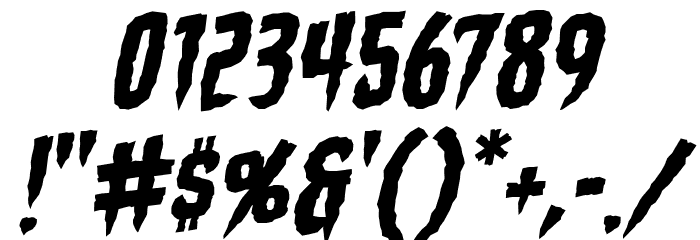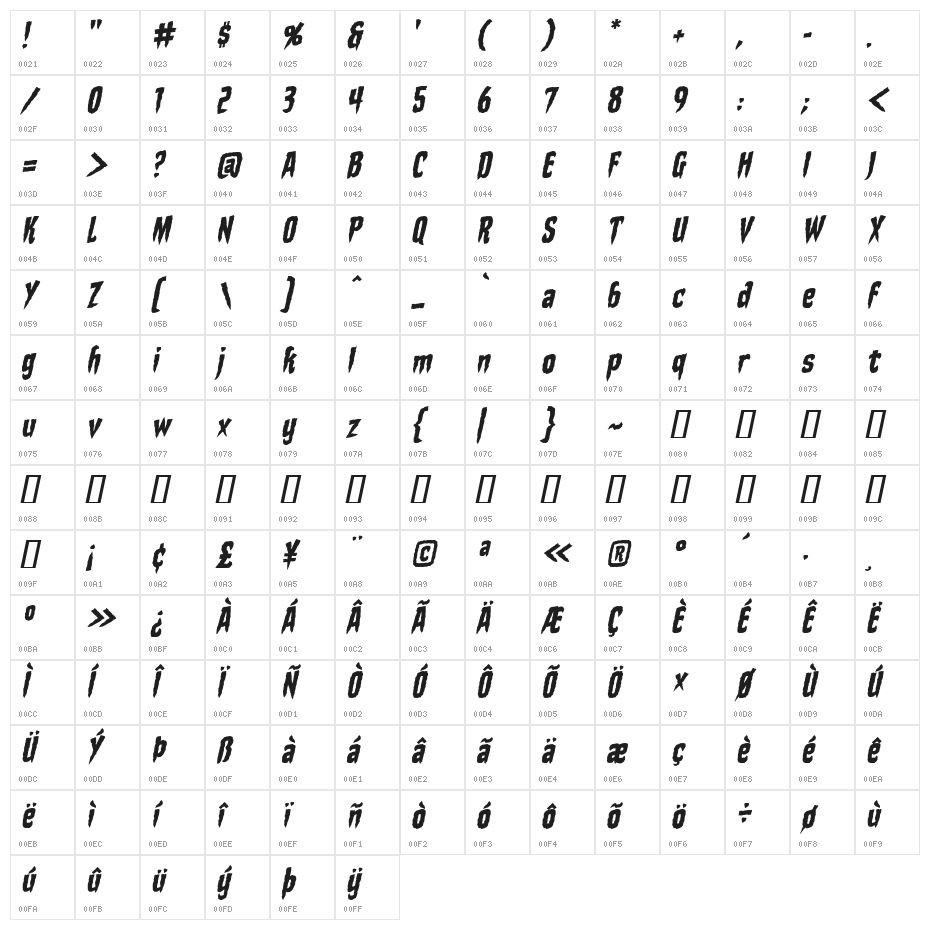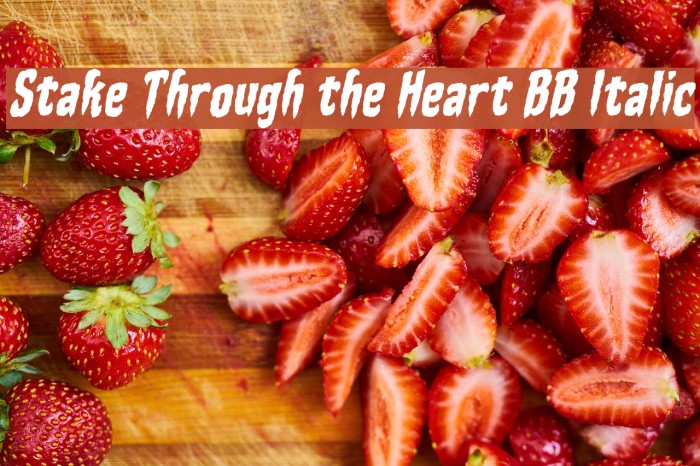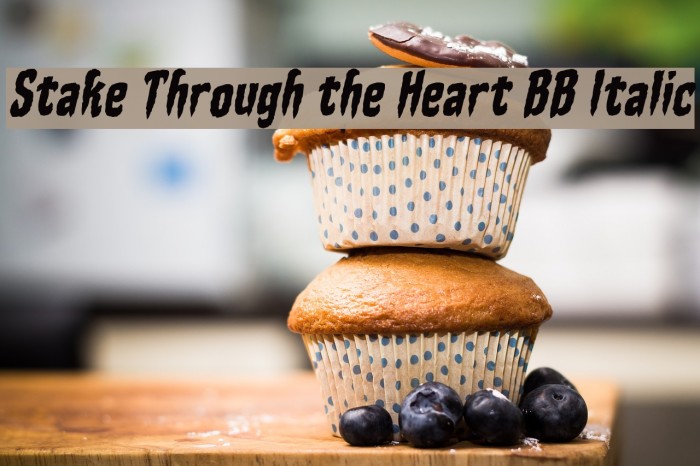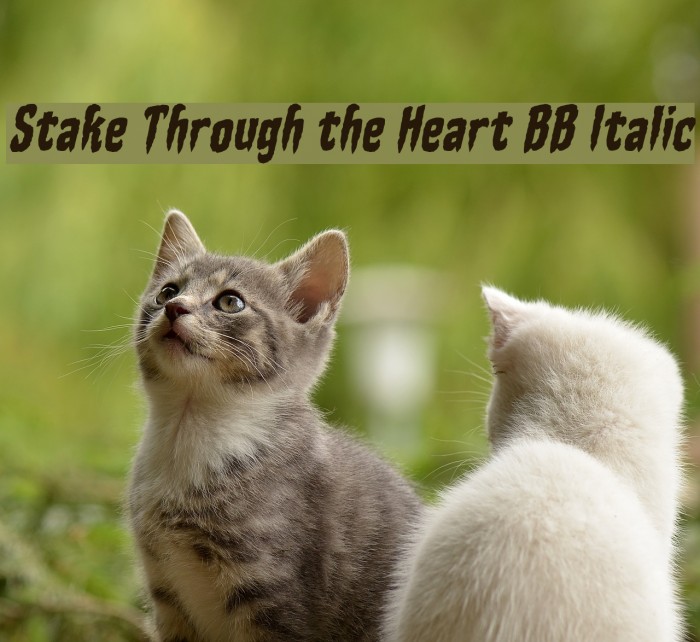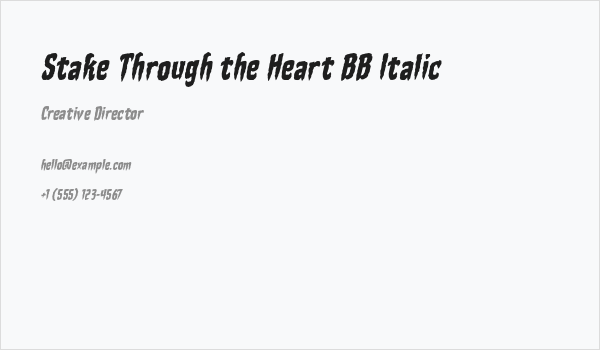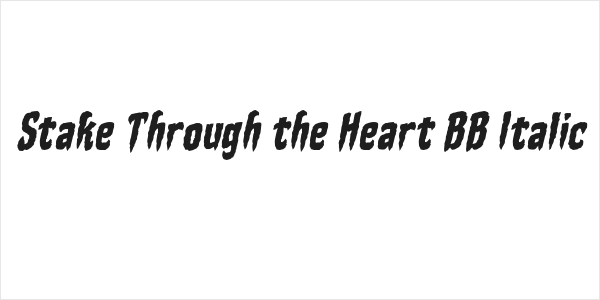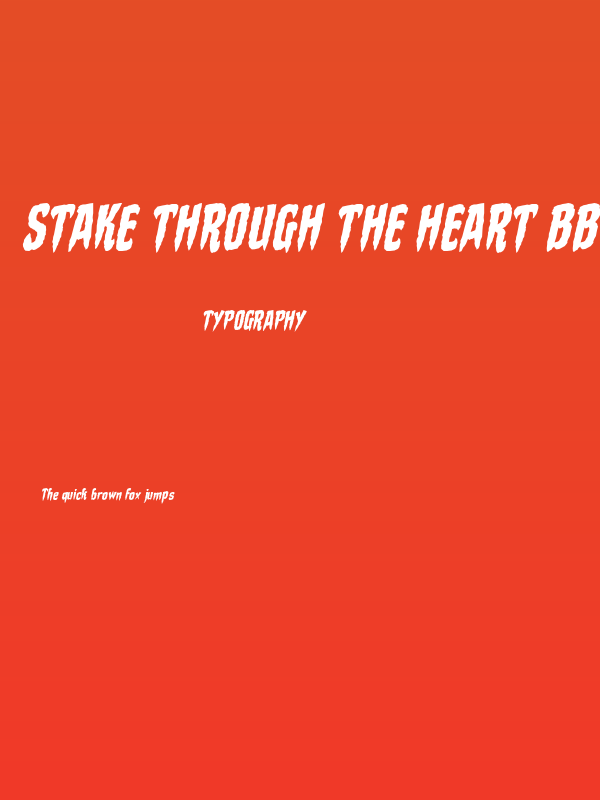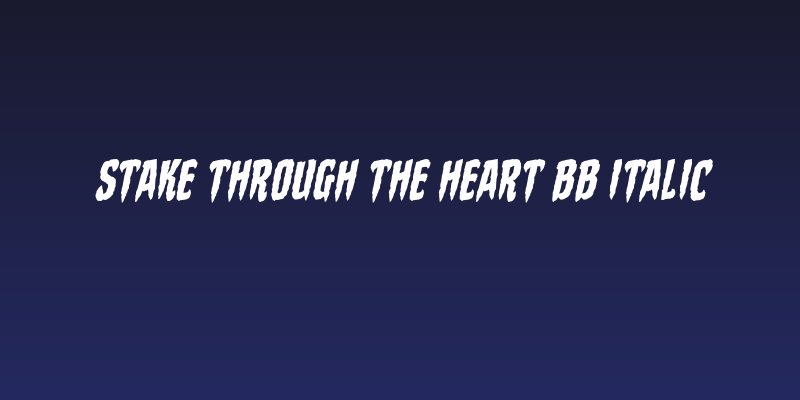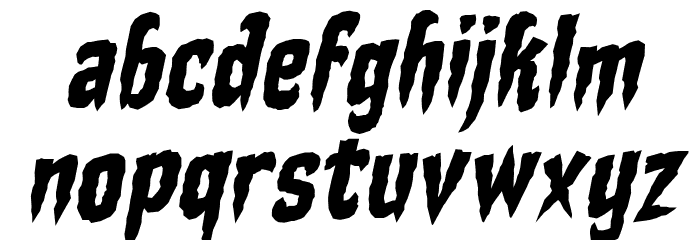
Stake Through the Heart BB Italic Font
Stake Through the Heart BB Italic Description
This font features a bold and jagged design, reminiscent of horror or thriller themes. The letters have a sharp, uneven edge, giving them a distressed and edgy appearance. The italic style adds a dynamic and aggressive slant, enhancing the dramatic effect. The uppercase and lowercase letters maintain a consistent style, with numbers and special characters following the same rugged aesthetic. The font's unique and striking appearance makes it suitable for projects that require a bold statement or a touch of the macabre.
| Proposed Projects | Ideal for horror movie posters, Halloween event flyers, edgy graphic novels, or any project needing a dramatic and intense typeface. |